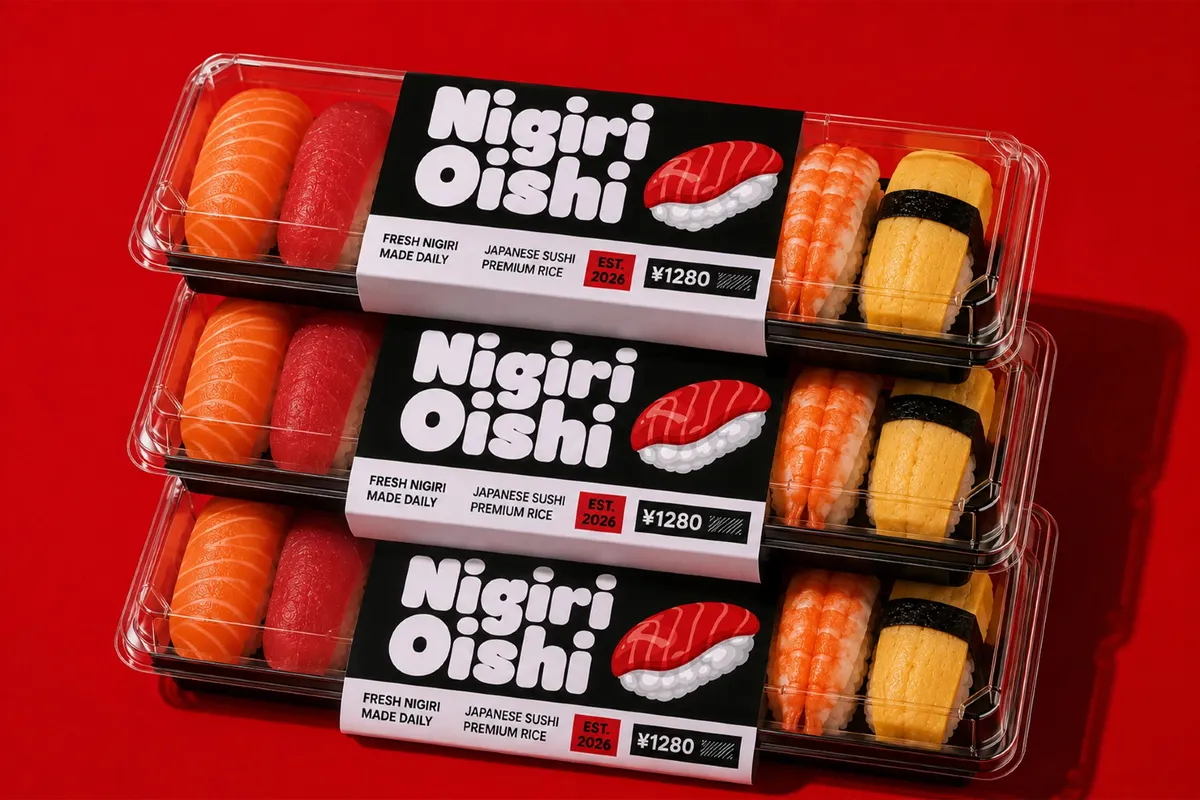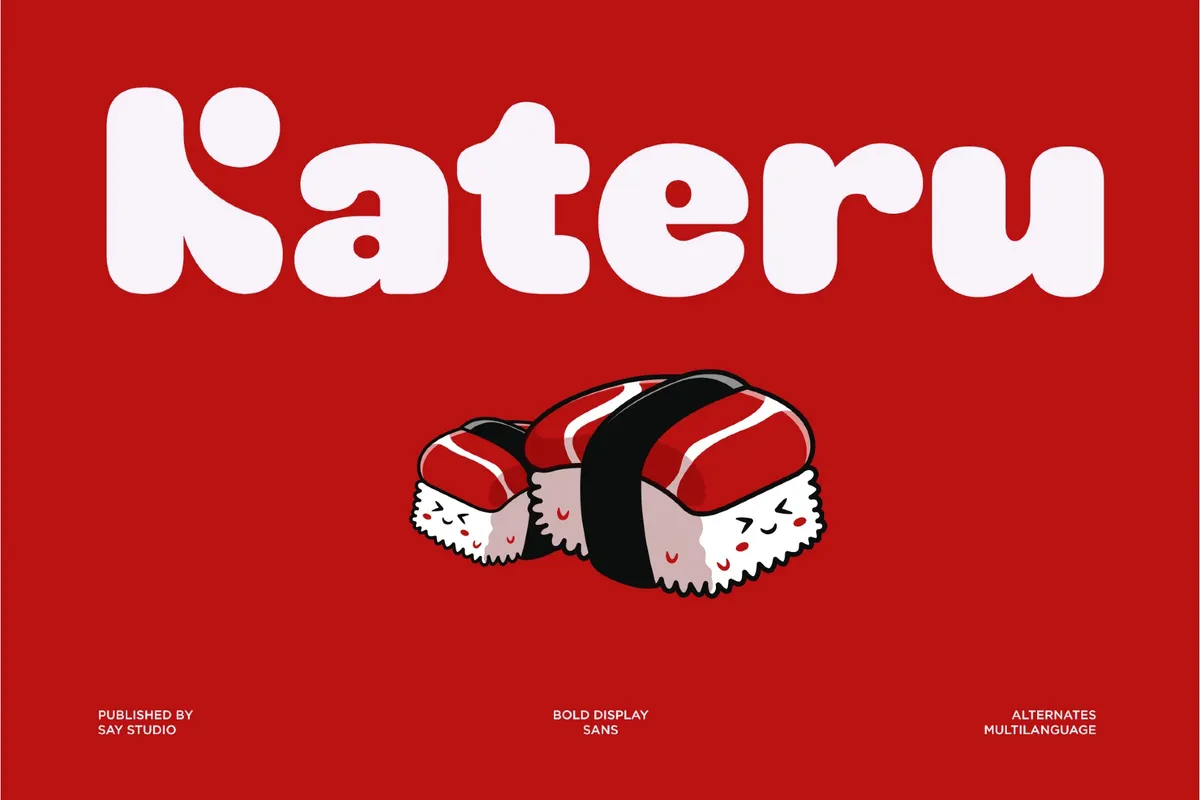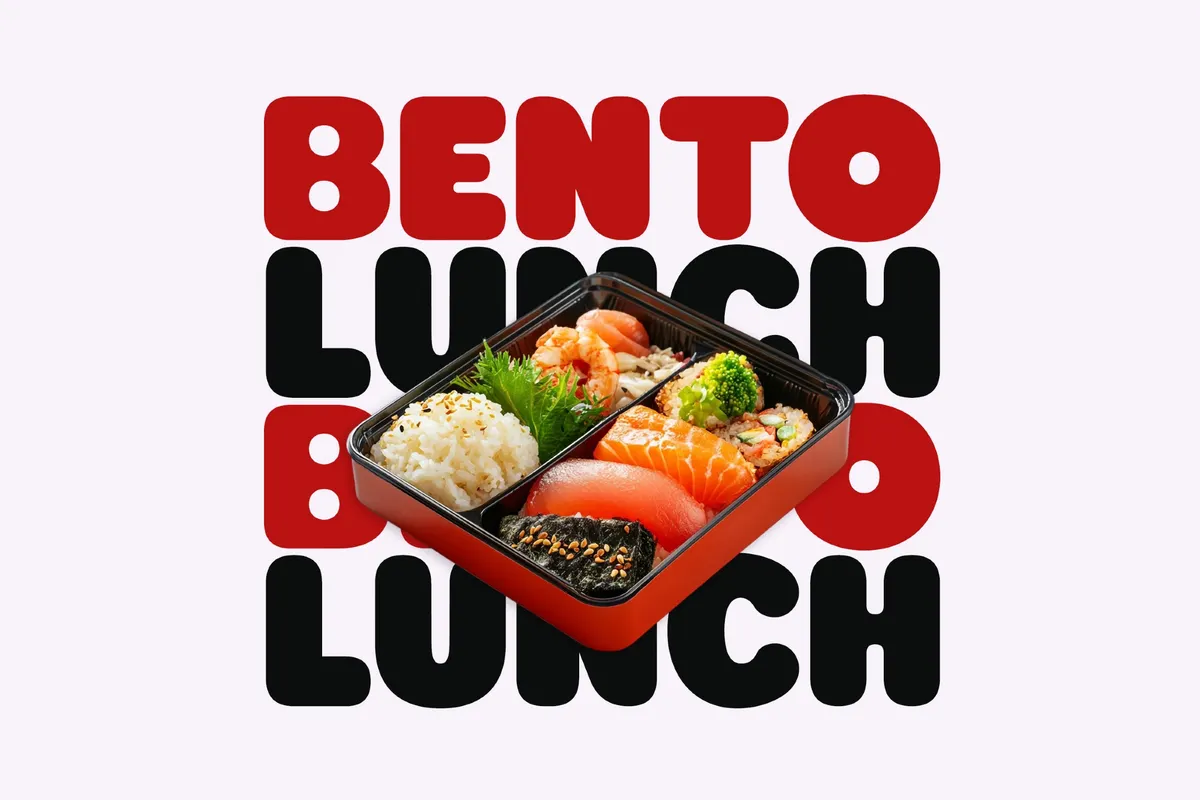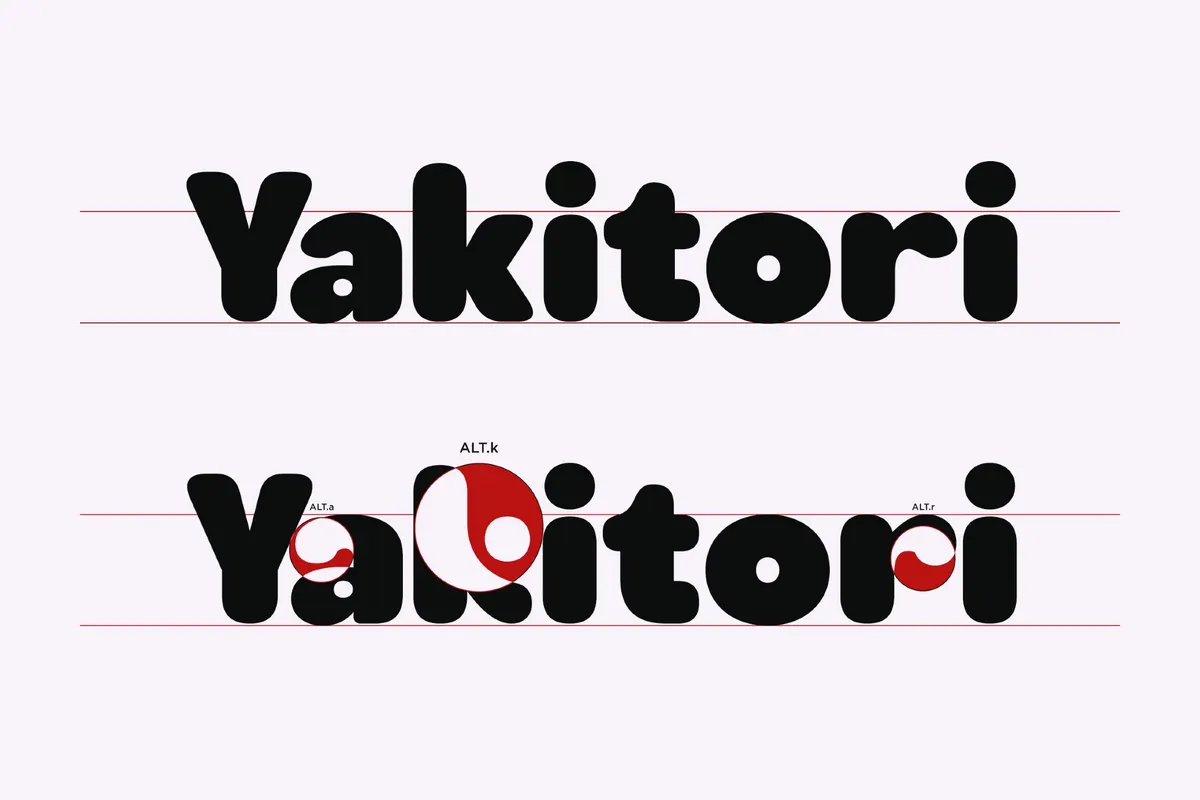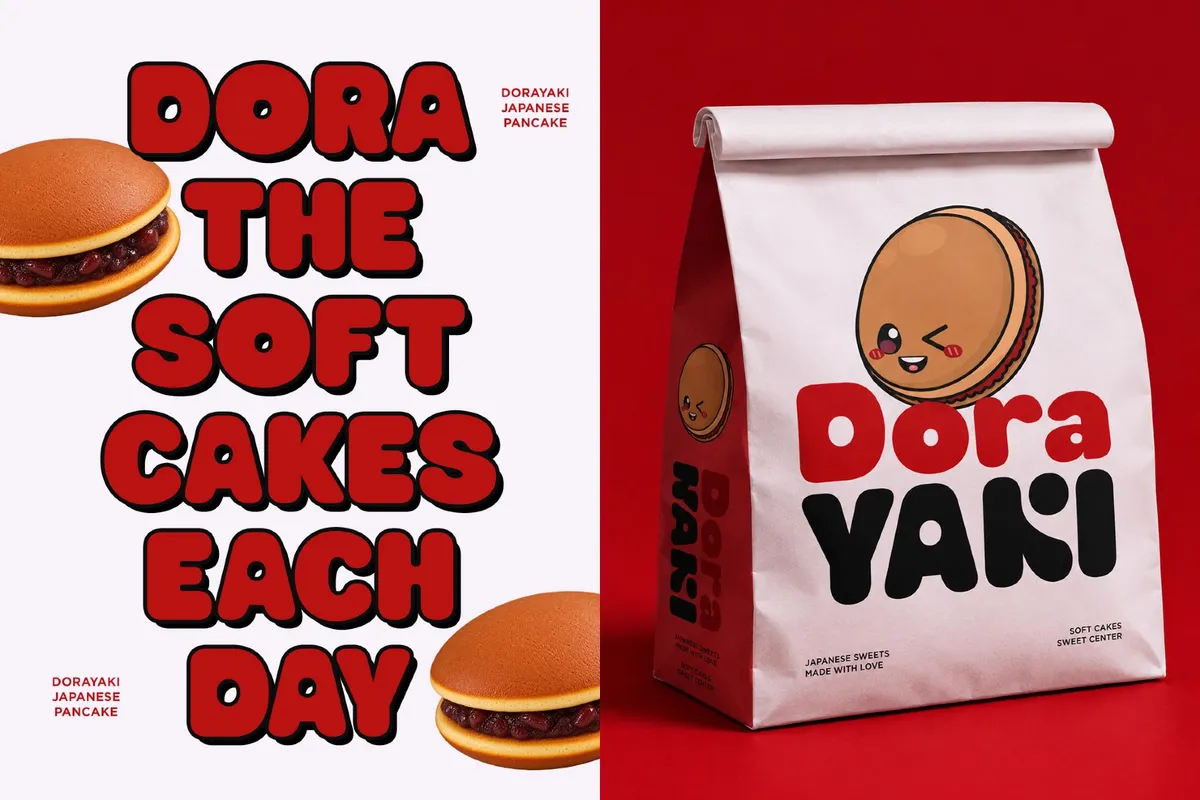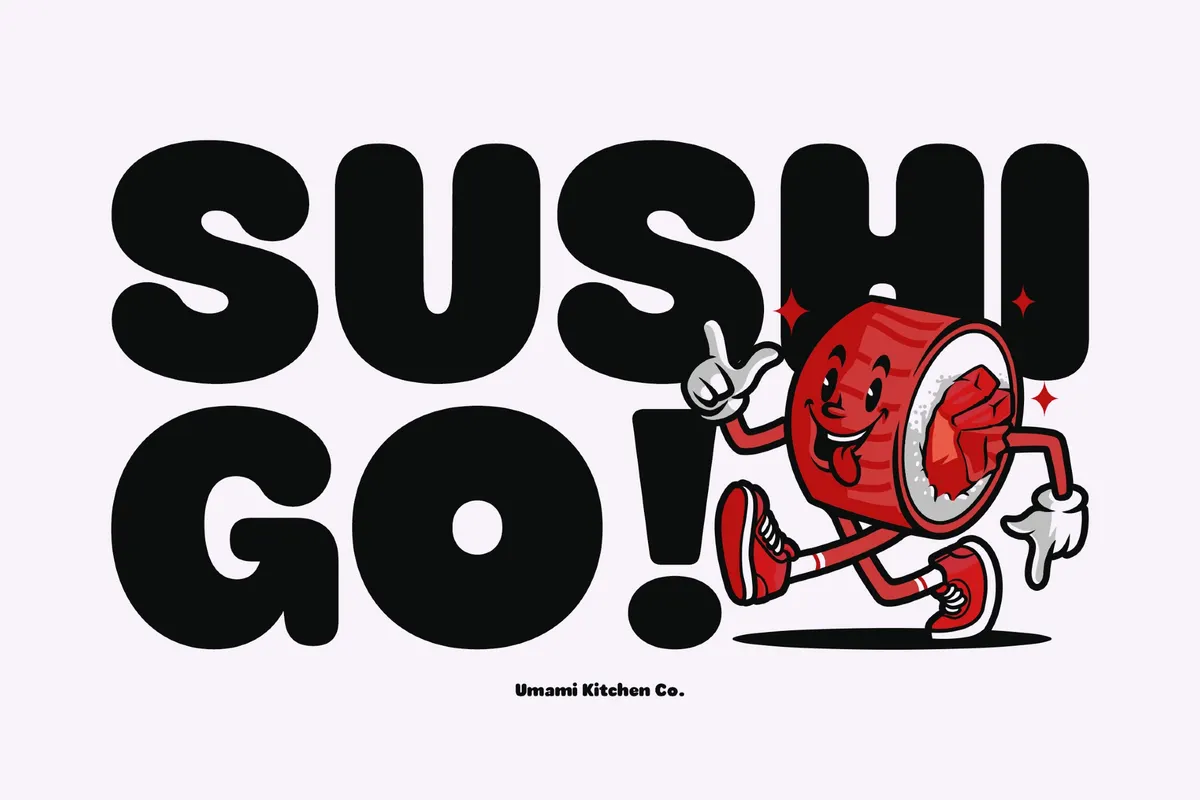
Kateru - Bold Rounded Sans Serif Font
Kateru rounds every letter into thick, bubble-like strokes, landing as a bold rounded font built for food branding with personality. A set of stylistic alternates swaps several counters for a spiral swirl, echoing the cross-section of a sushi roll, so headline words can pull the pattern into their own letterforms.
Regular and Italic styles cover headlines and supporting text, with ligatures and kerning built in. Use it for sushi and ramen restaurant branding, Japanese café menus, bakery and snack packaging, food truck signage, mascot logos, and playful editorial layouts.
- Regular & Italic styles;
- uppercase & lowercase;
- stylistic alternates (spiral swirl);
- numerals, punctuation & symbols;
- ligatures & kerning support;
- multilingual support.